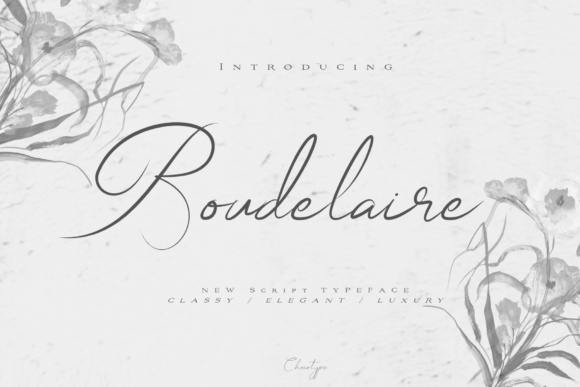
Let us transport you to a world of elegance and timeless allure. Where words dance in a rhythmic symphony of sophistication and grace. Introducing the Boudelaire Font, a masterpiece crafted by the artistic hands of Chocotype, designed to set your creative projects apart.
Within the Boudelaire Font's delicate strokes lies a charm that captures the essence of feminine beauty. Its script-like dance enchants the eyes, while its flowing curves add a touch of enchantment to every word. It's the perfect companion for your special event designs, wedding invitations, logos, branding materials, and any project seeking a touch of sophistication.
Picture the warmth of a candlelit dinner, where Boudelaire's flowing strokes imprint your menu with an air of understated luxury. Imagine the elegance of a wedding invitation, where Boudelaire's delicate letters announce the joyous union of two souls, forever entwined. Witness the allure of a boutique logo, where Boudelaire's graceful curves hint at the timeless quality of its offerings.
Boudelaire's versatility extends far beyond the traditional realm of script fonts. Its refined strokes lend themselves effortlessly to monograms, adding a touch of personal elegance to stationery, jewelry, and home décor. Create logotypes that radiate sophistication and professionalism, or use Boudelaire to craft social media posts that exude an air of timeless allure.
With Boudelaire, you hold the key to unlocking a world of visual delight. Its carefully crafted characters will elevate your designs to new heights, capturing attention and leaving a lasting impression on your audience. Embrace the beauty of Boudelaire and let your creativity flourish. Join countless design enthusiasts who have succumbed to its charm. Experience the magic of Boudelaire today and see your projects transformed into masterpieces of elegance.